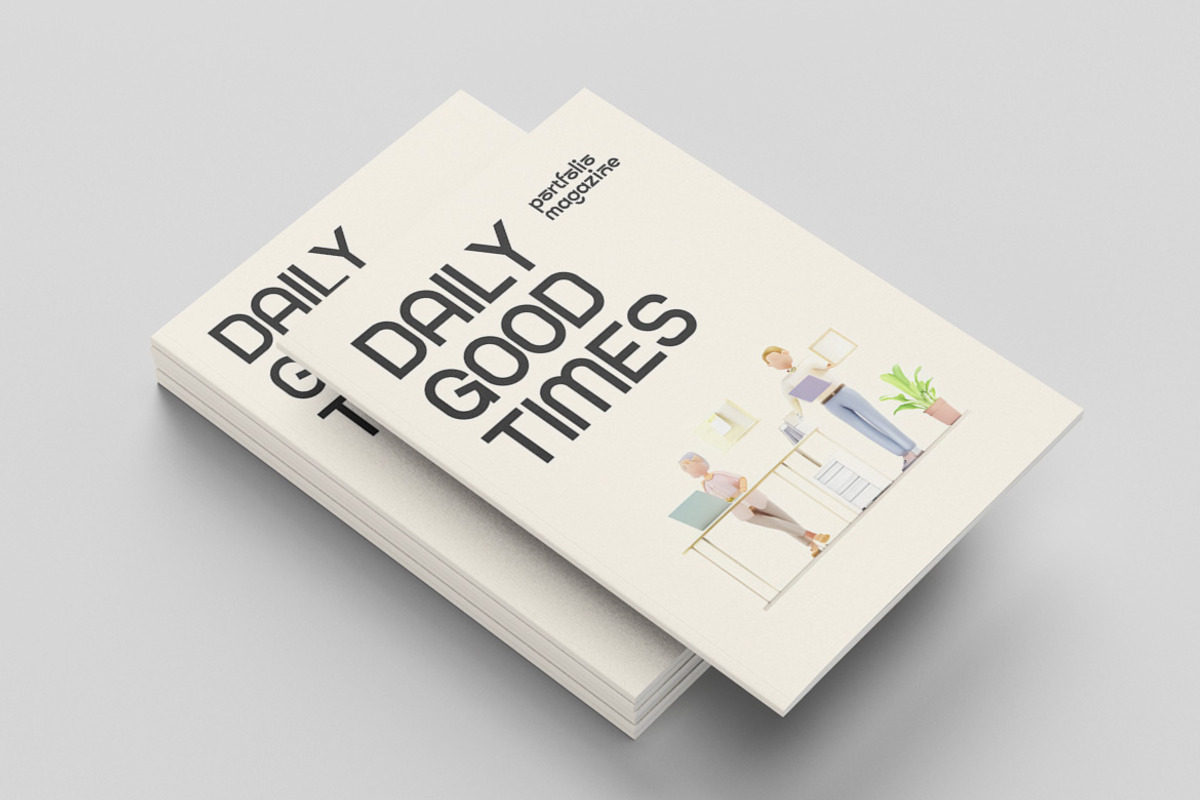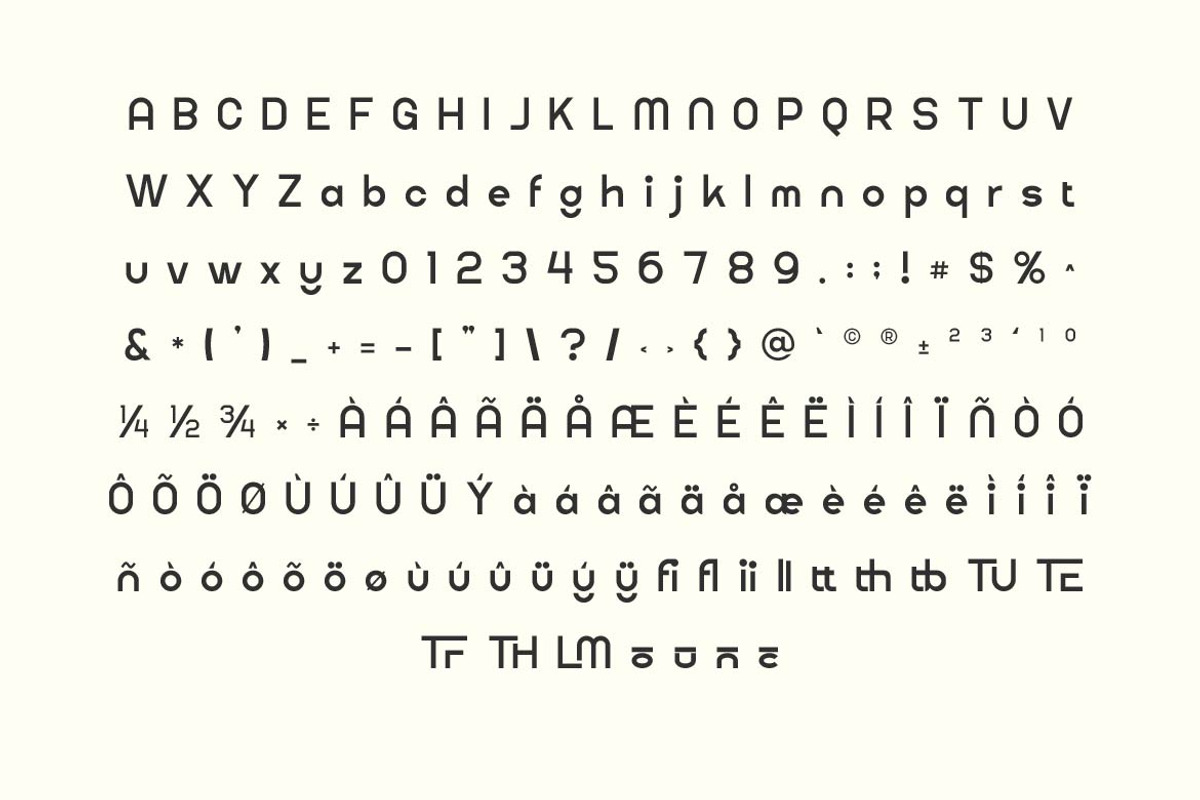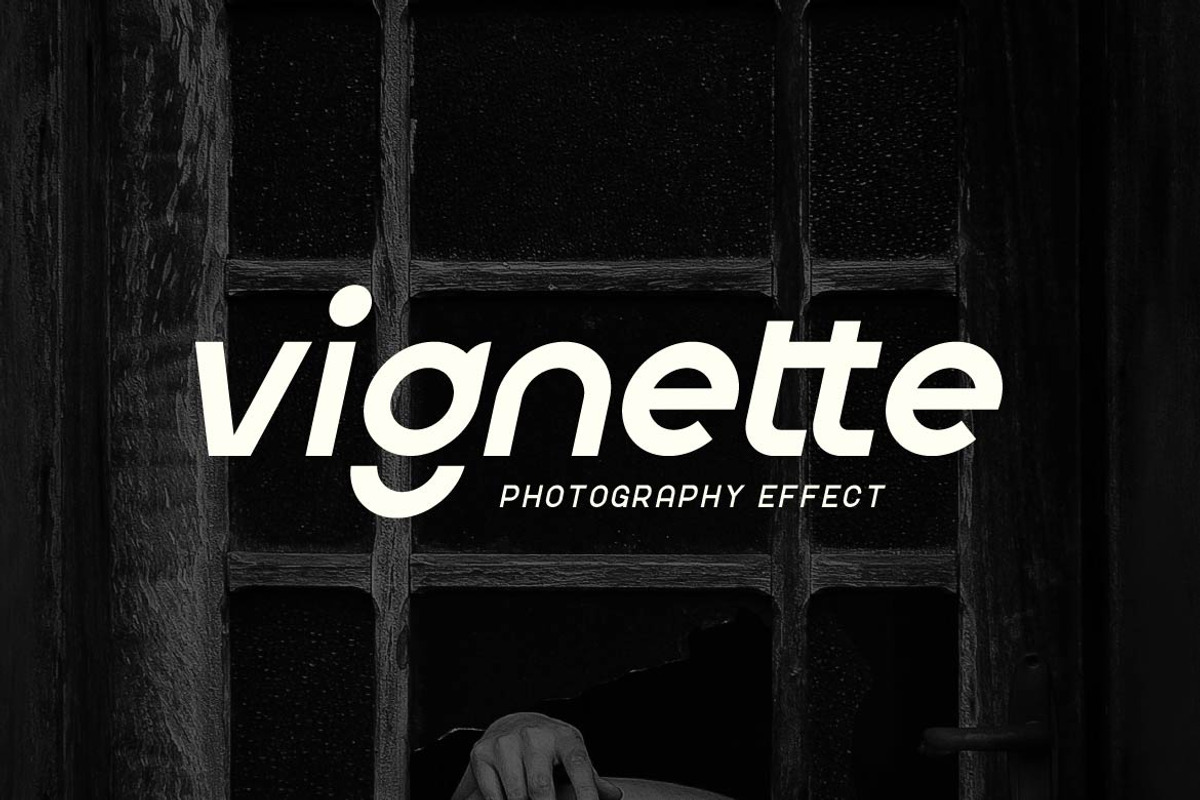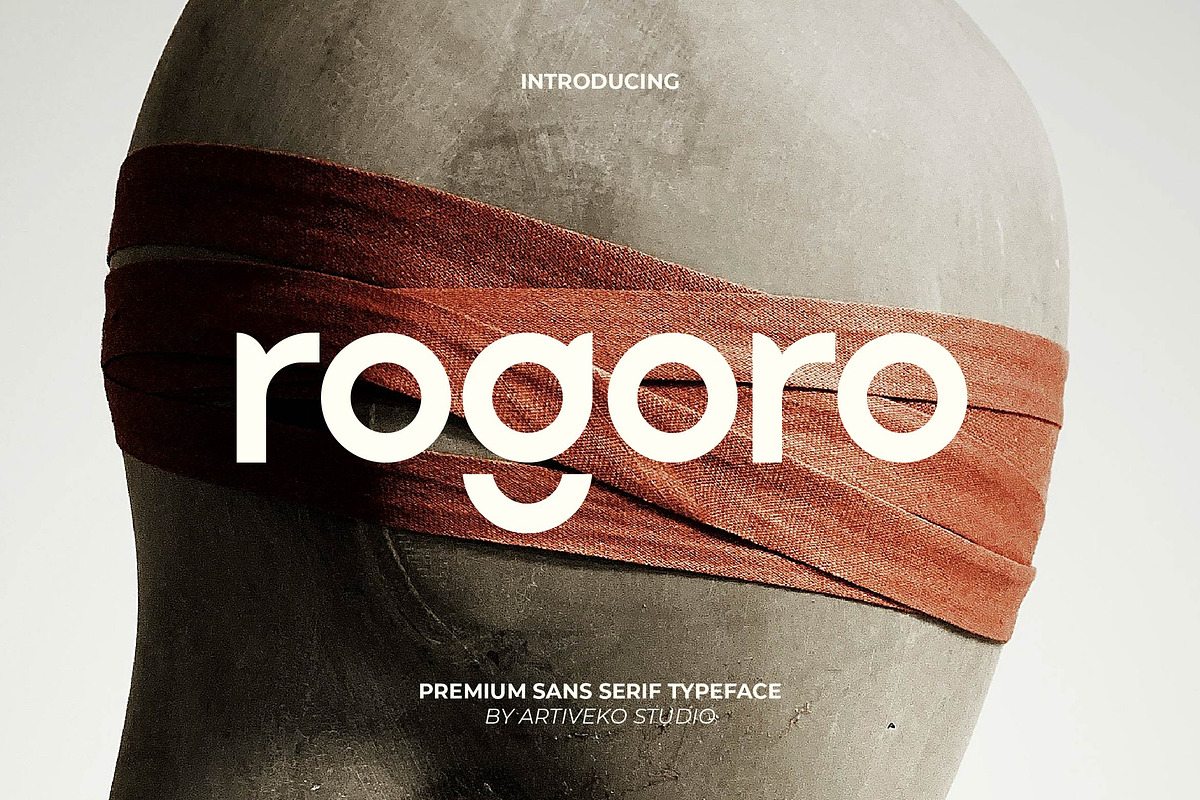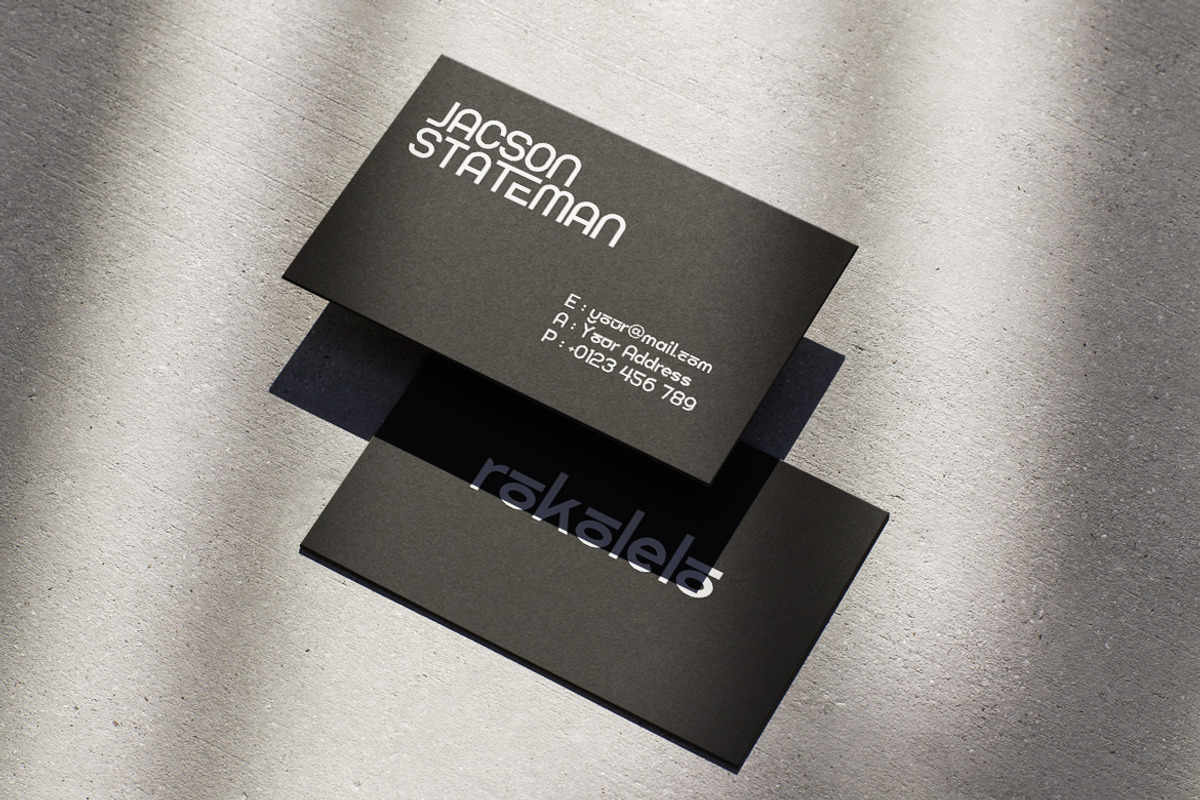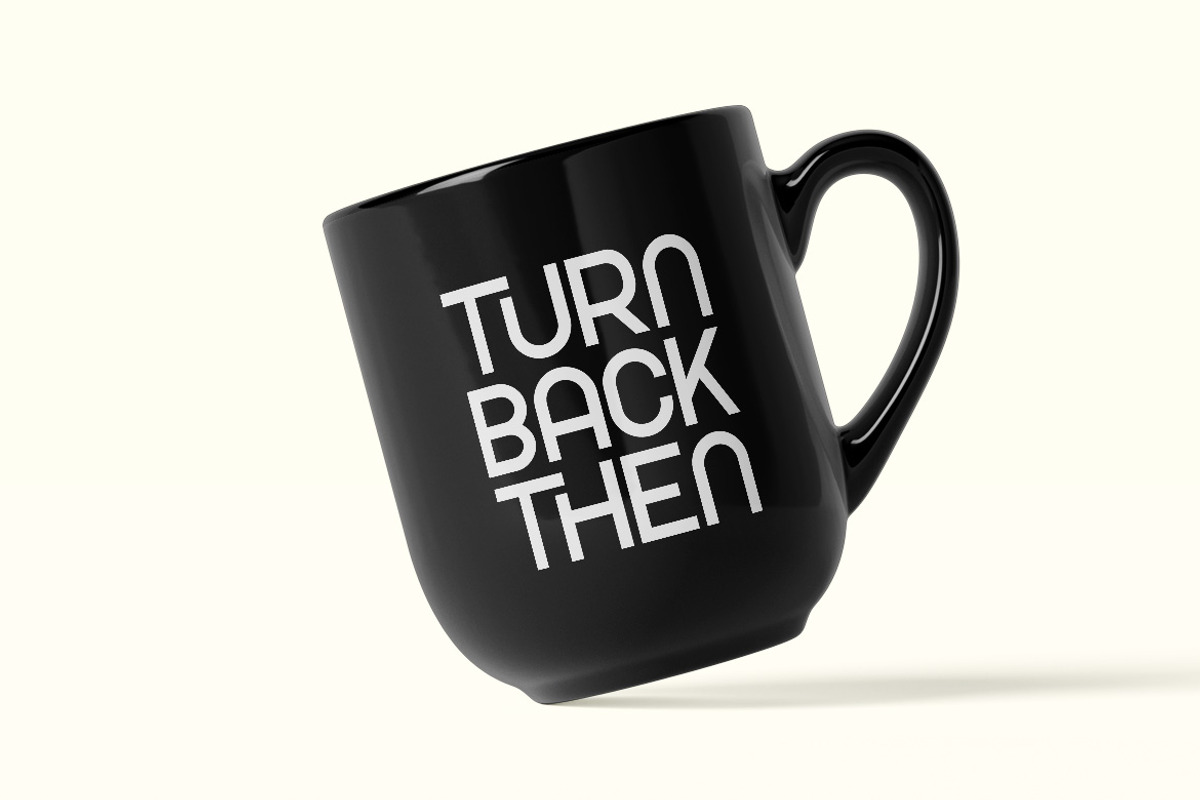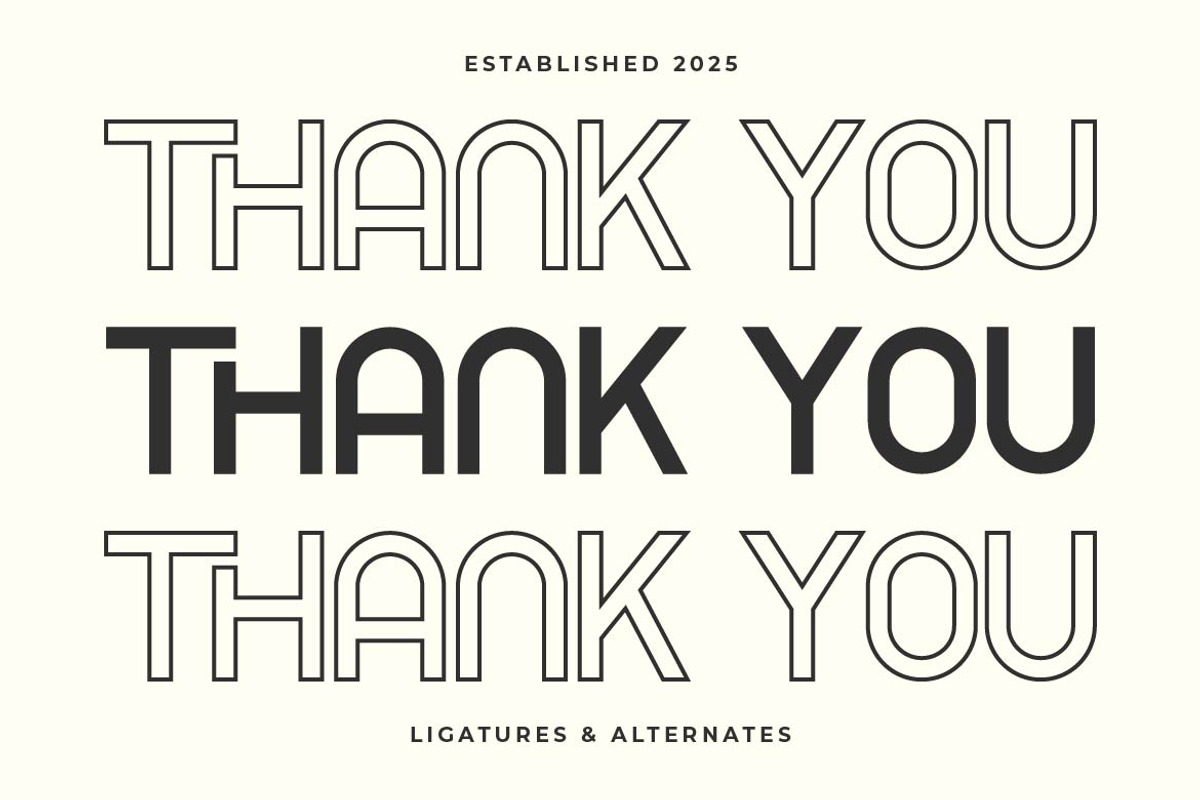
Rogoro - Elegant Sans Serif
Rogoro is a sleek and versatile sans serif font designed with modern branding in mind. Featuring sharp geometry, clean proportions, and a minimal yet distinctive style, Rogoro is perfect for creating bold logos, professional brand identities, product packaging, website headers, and social media graphics.